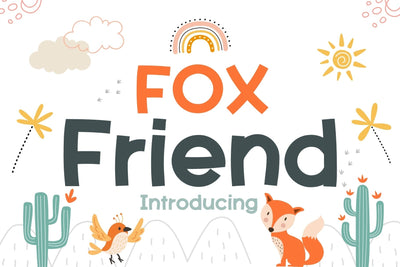
Fox Friend Font
Fox Friend It is a cute and playful handwritten font. it fits perfectly into any design idea, such as children’s projects, blog posts, logos, branding, ads, invitations, greeting cards, planners, photo albums, decorations, and much more.